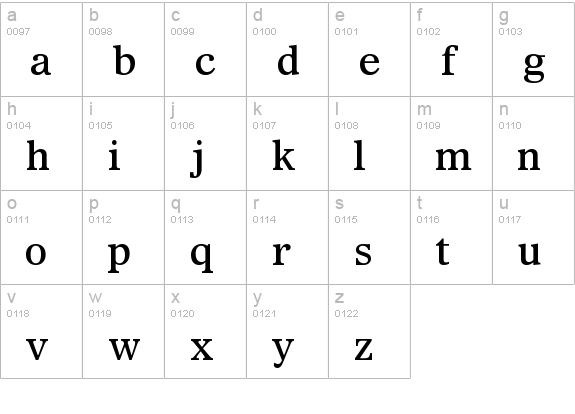
Sterling SSi Font Details
The Sterling SSi font is a versatile and elegant typeface that exudes sophistication and style. With its sleek lines and timeless design, this font is perfect for a wide range of projects including branding, invitations, and signage. The Sterling SSi font is available for free download at FontsMarket.com, making it easily accessible for all designers and creatives looking to add a touch of class to their work. Embodying a sense of modernity and refinement, this font is a must-have addition to any font library. Get your hands on the Sterling SSi font today and elevate your designs to new heights.